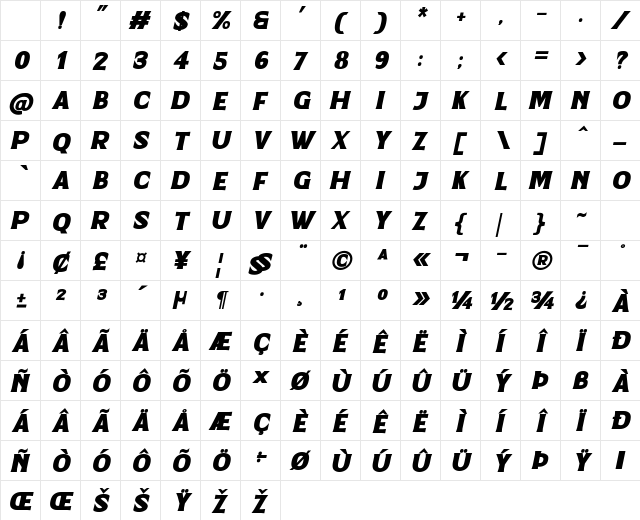
Goldener is a composed and adaptable typeface that performs quietly and consistently across a wide range of design contexts. The slanted form adds forward momentum and visual energy. Its bold stroke weight gives it real presence on the page.
Pro Tip: Use Goldener for emphasis, pull quotes, and subheadings where its slanted energy can add rhythm to the layout.